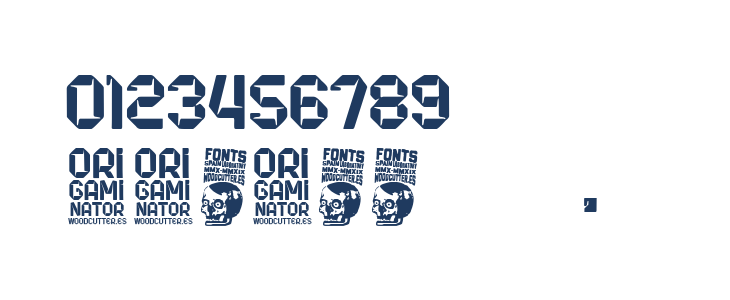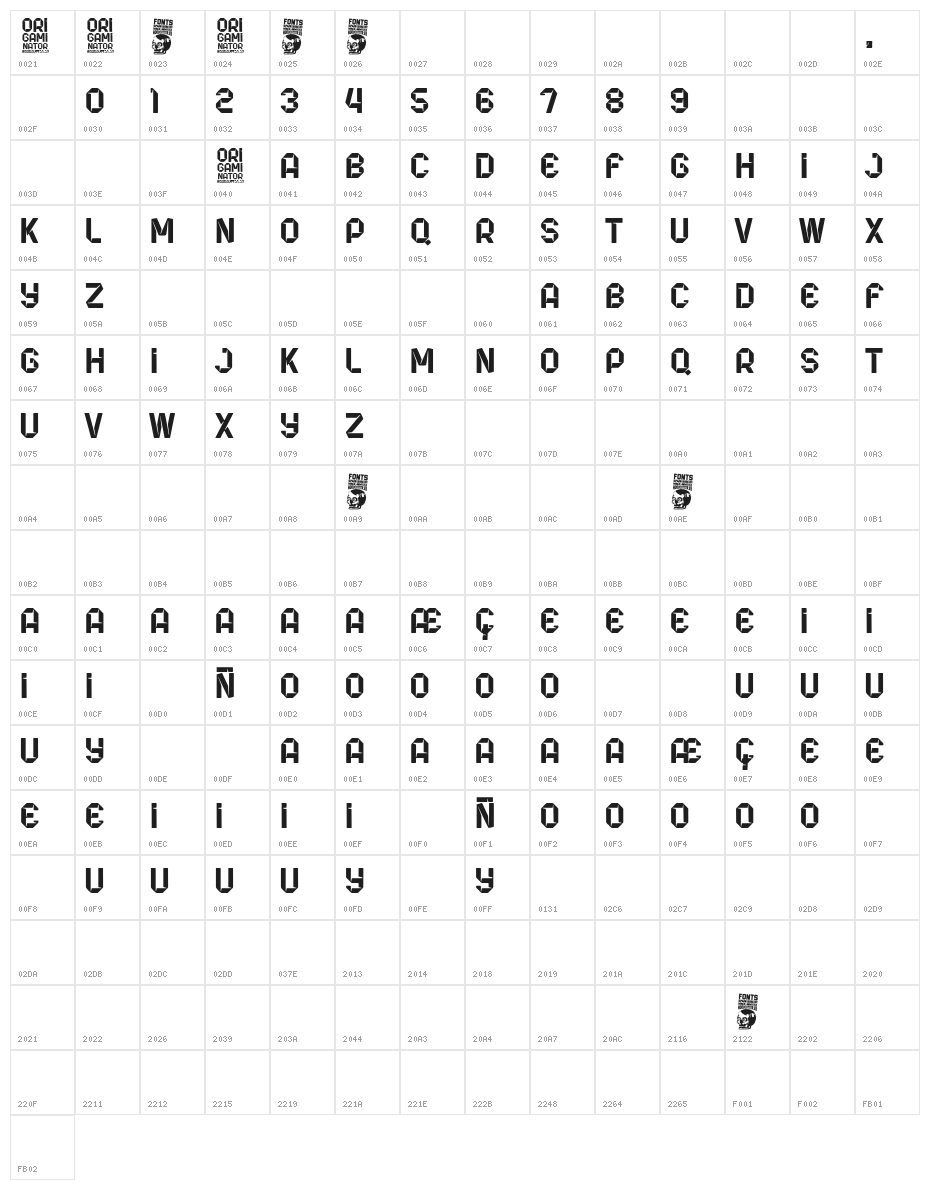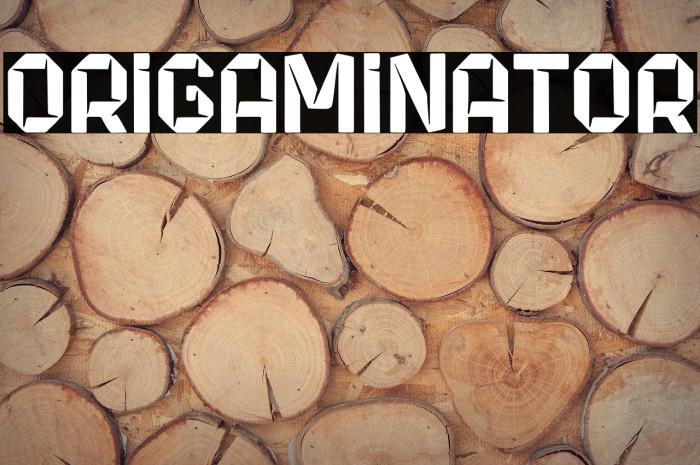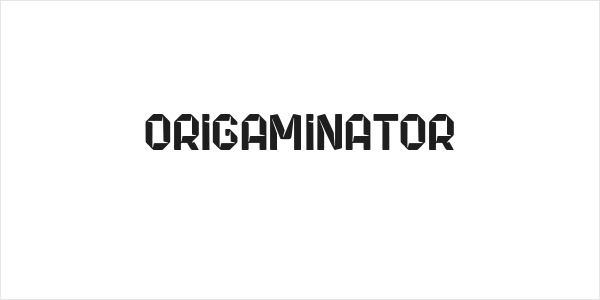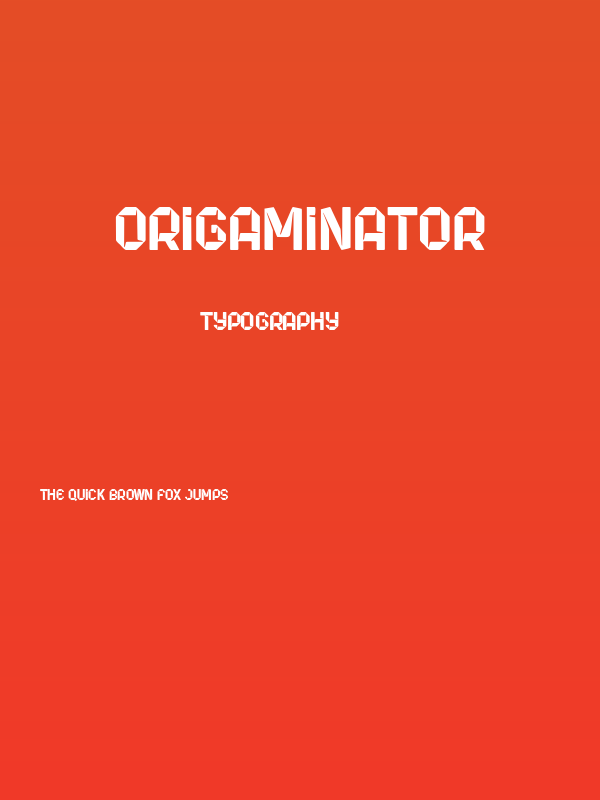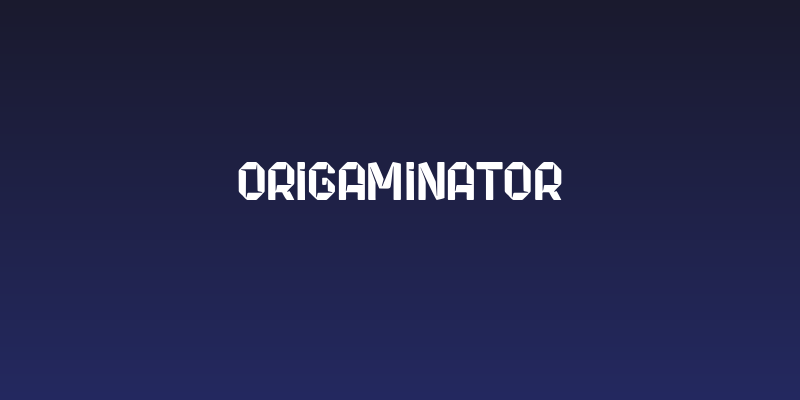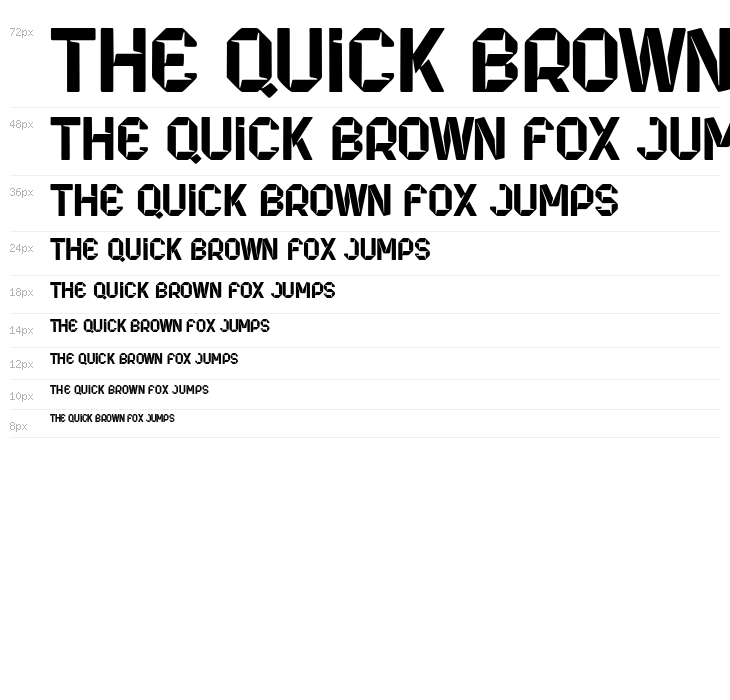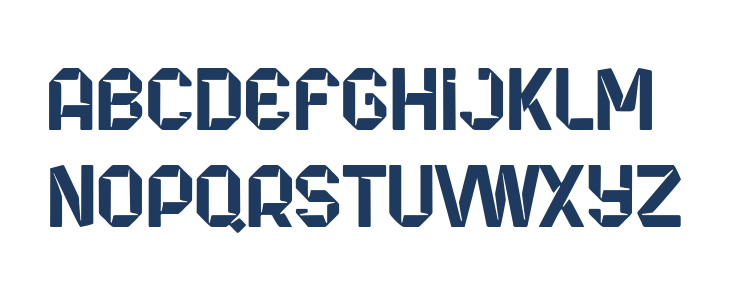
Origaminator Font
Origaminator Description
This font features a bold, geometric design with a distinct origami-inspired style. Each character is crafted with sharp angles and straight lines, creating a sense of movement and modernity. The uppercase and lowercase letters maintain a consistent structure, while the numbers and special characters follow the same angular theme. The font's unique appearance makes it stand out, with a strong visual presence that is both artistic and functional. Its design is reminiscent of folded paper, providing a creative and innovative look that is perfect for eye-catching displays.